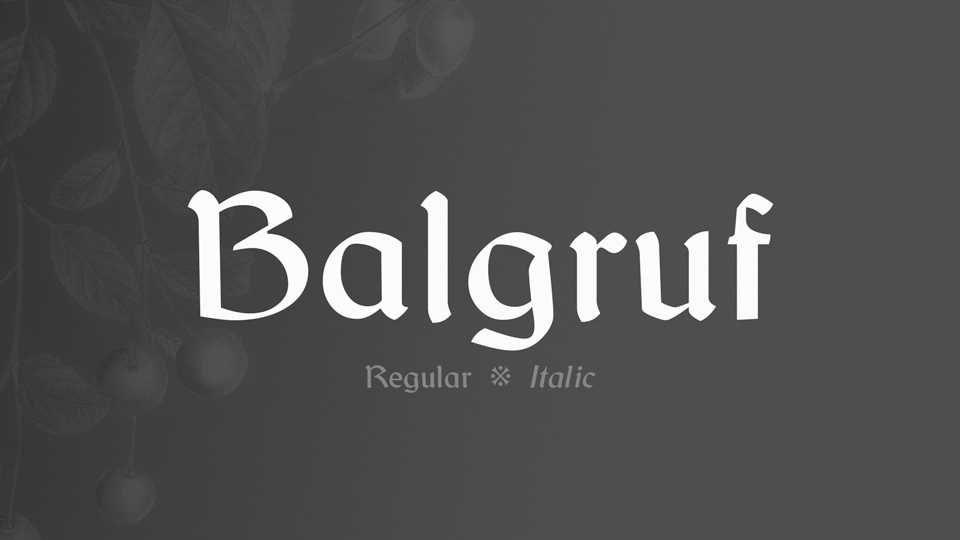
Download Balgruf font, a decorative typeface with two styles, inspired by Skyrim game. Balgruf is suitable for computer games.
Designer: Paul James Miller